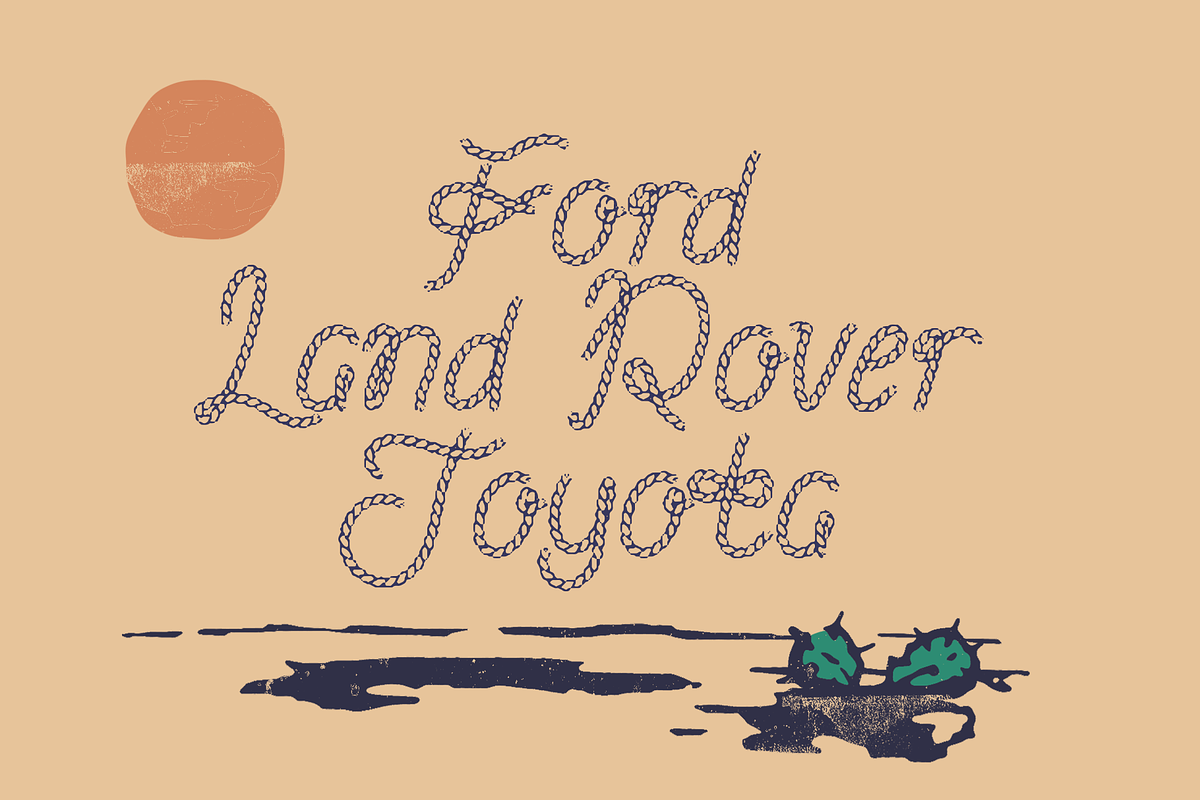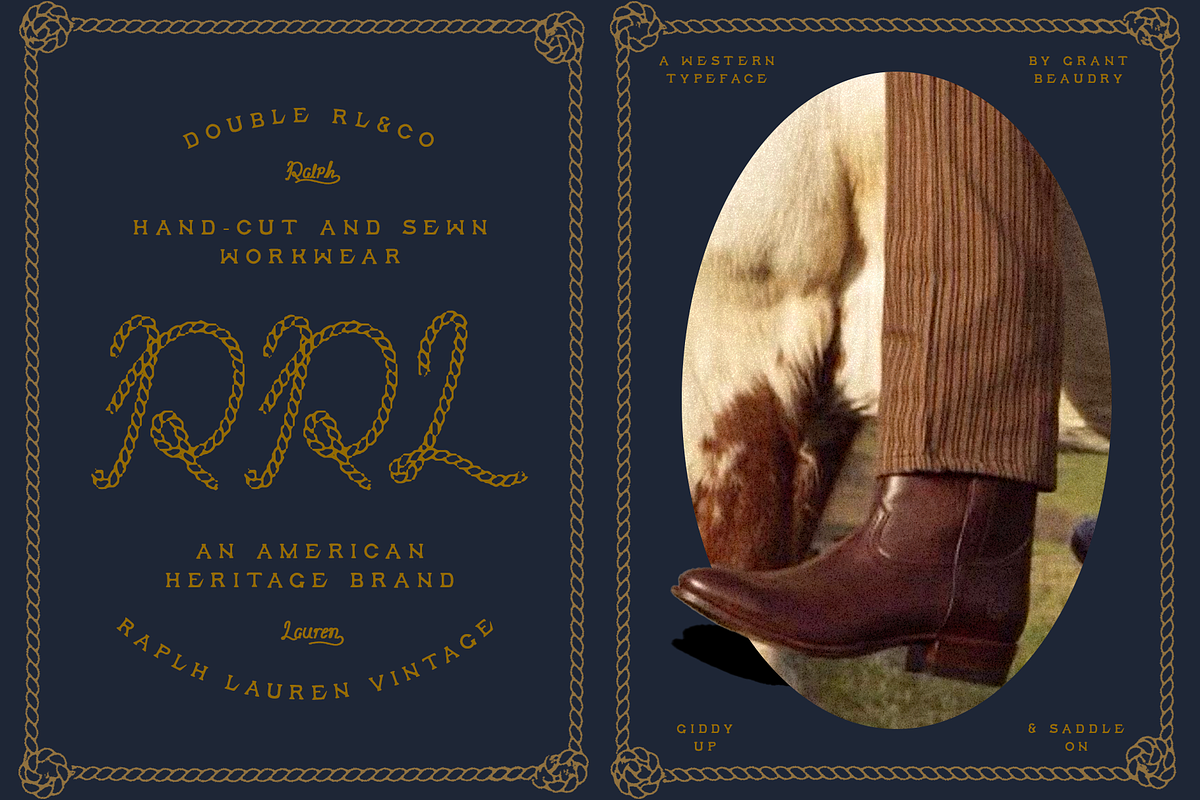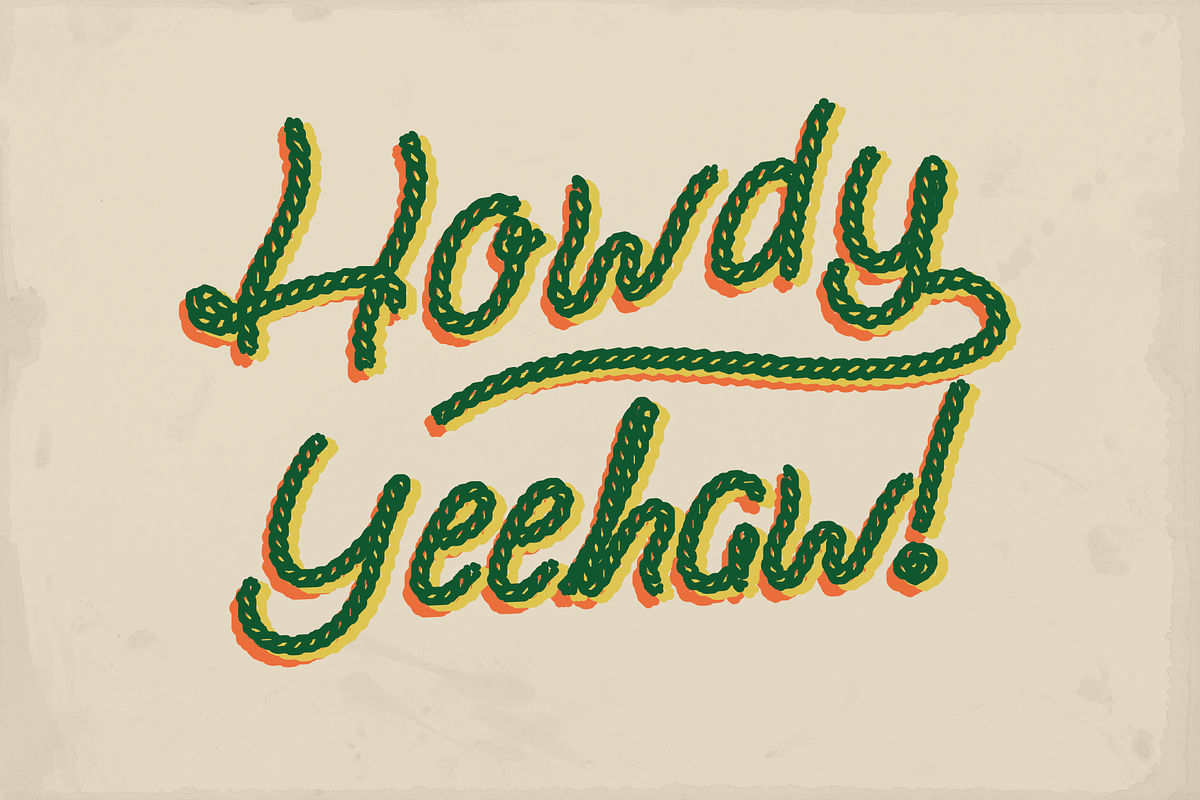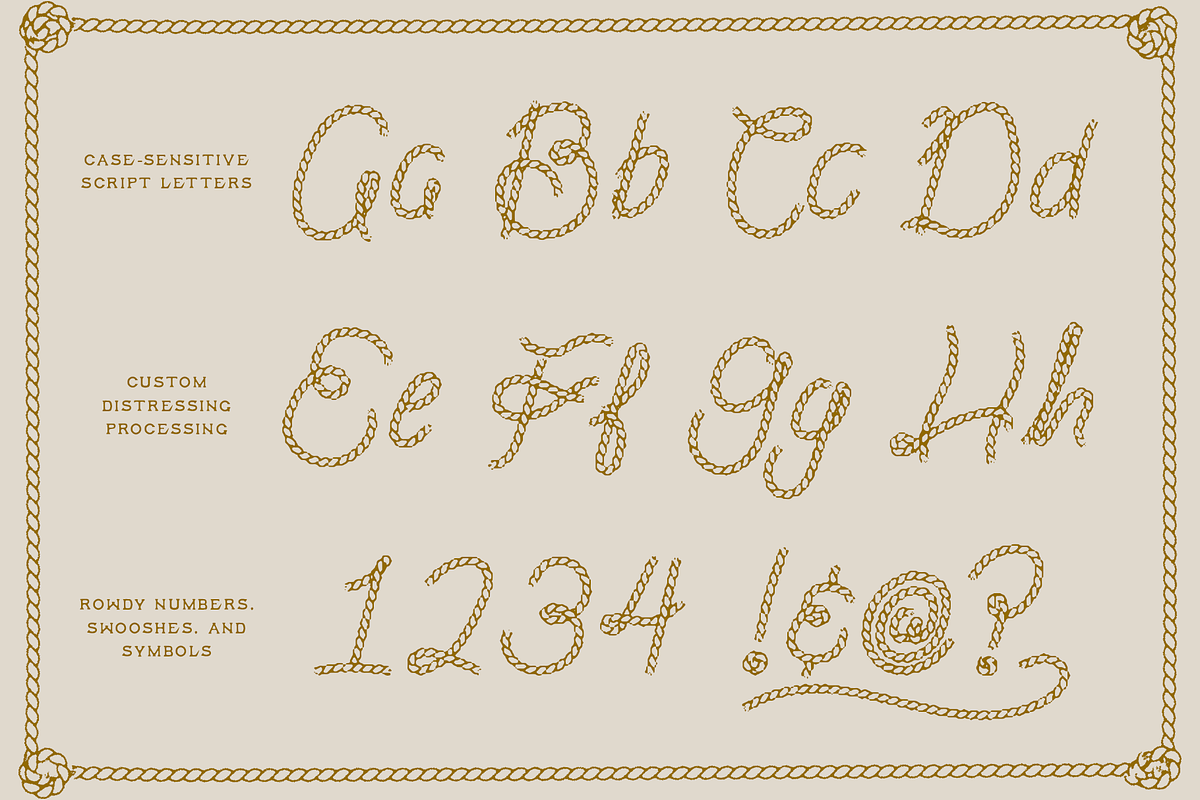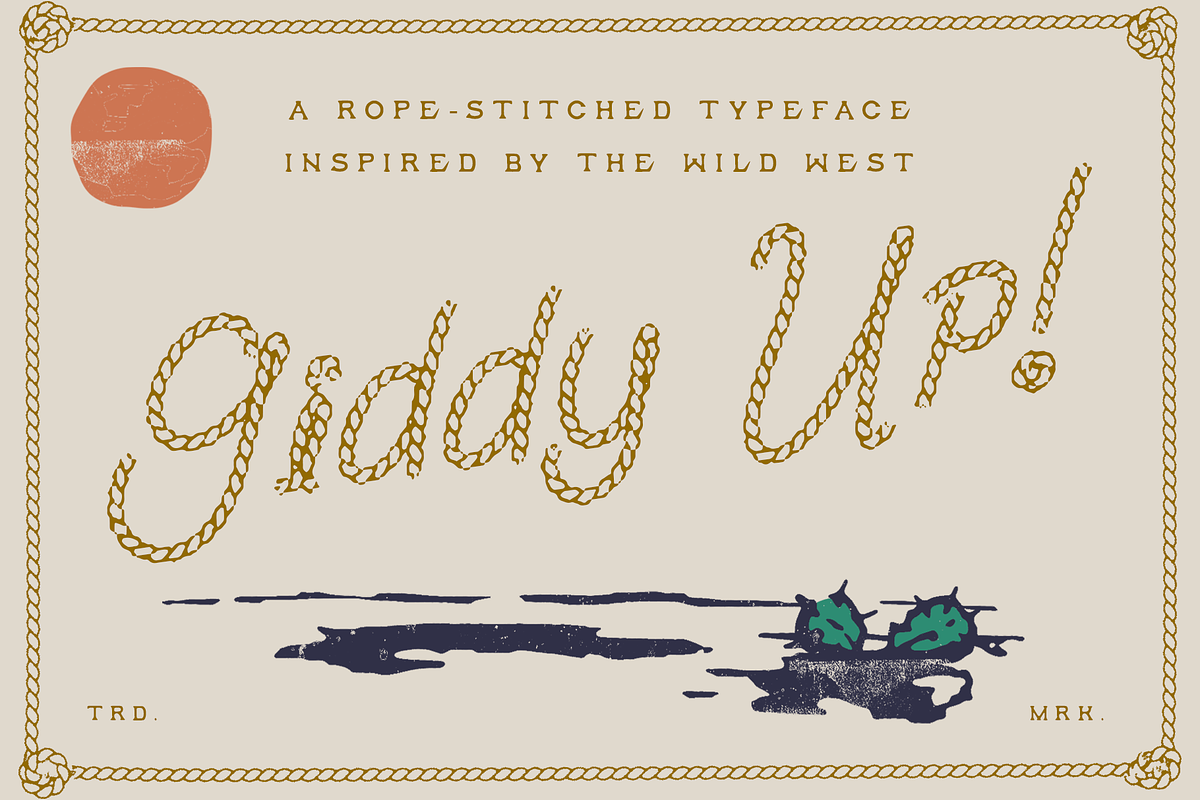
Giddy Up | rope script
Howdy, partner! So you think you can throw a lasso, eh? Well, let's see what you got! 'Giddy Up' is a rope-stitched typeface inspired by the wild-wild west only few can tame. Legend has it, this intricate script typeface features both uppercase and lowercase glyphs, along with rowdy numbers, symbols, and (2) swooshes. Well sonny, what do you think? Can you handle this one? Alright, giddy up!